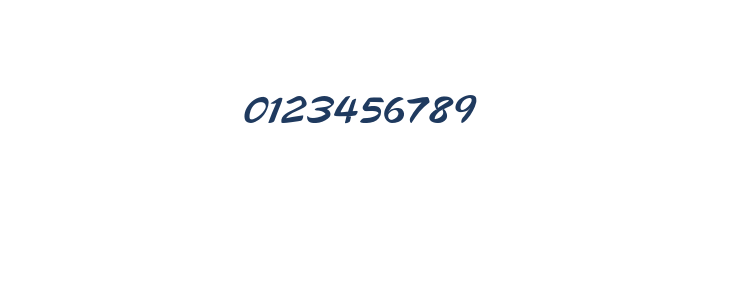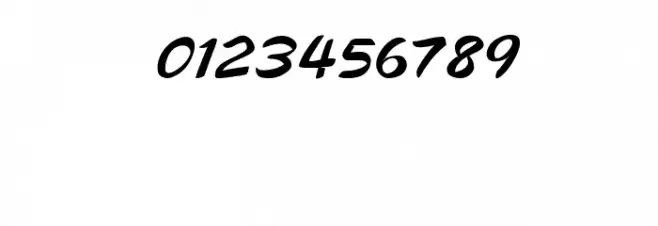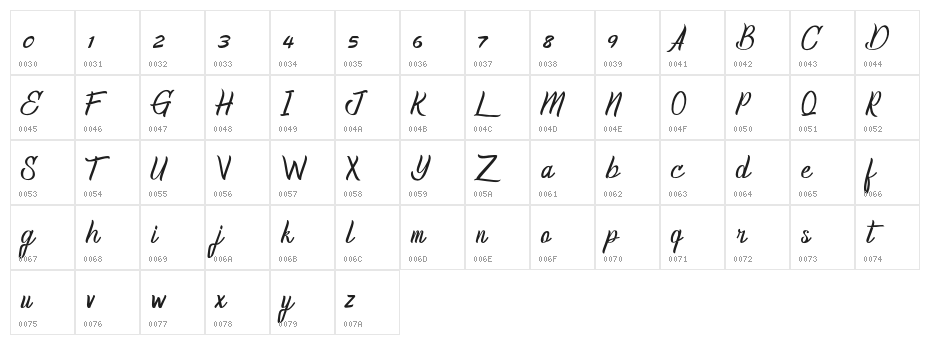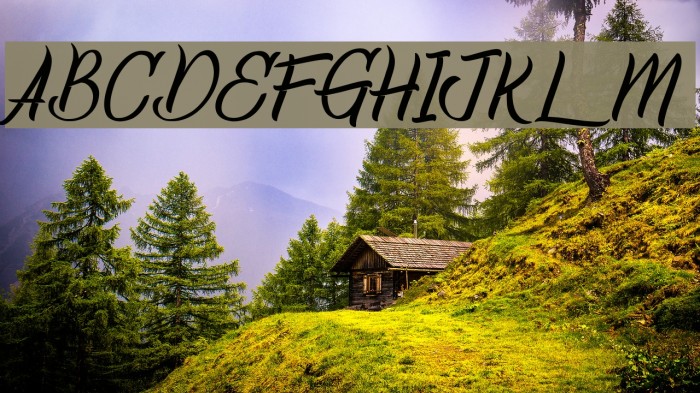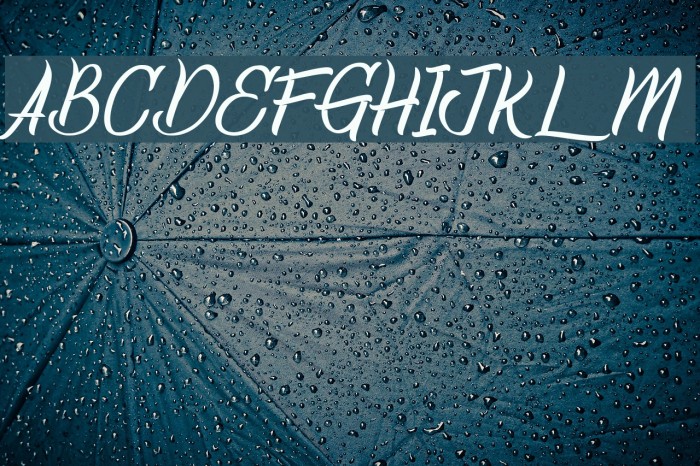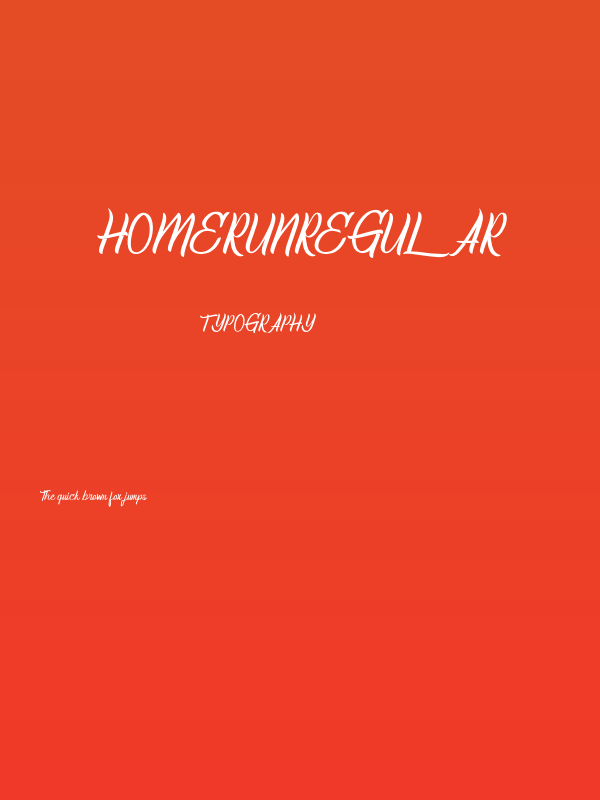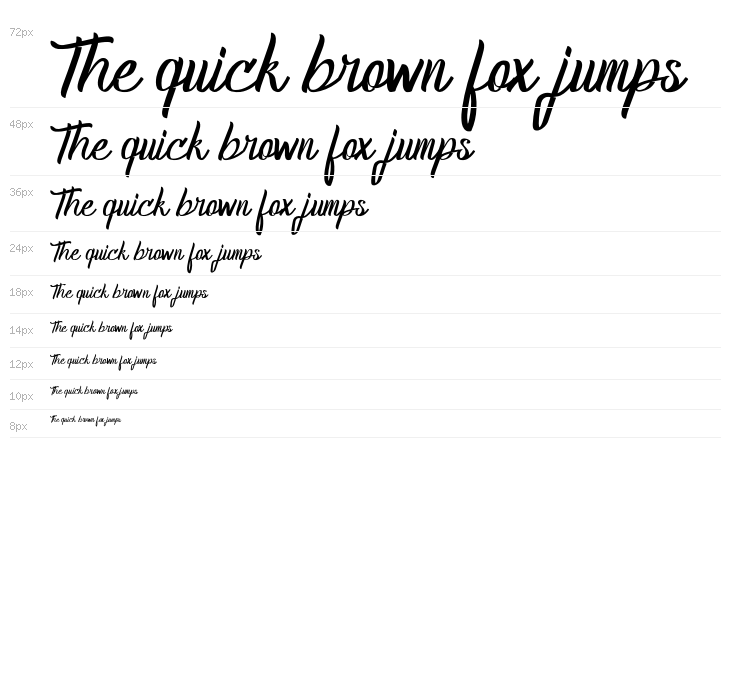
HomerunRegular Font
HomerunRegular Description
This font features a dynamic and flowing script style, characterized by its elegant and cursive letterforms. The uppercase letters are bold and slightly slanted, giving a sense of movement and fluidity. The lowercase letters maintain a consistent style, with smooth curves and a handwritten appearance. The numerals are clear and legible, matching the overall script aesthetic. This font exudes a sense of sophistication and creativity, making it suitable for various artistic and formal applications.
| Overall Style | Elegant, Artistic |
| Proposed Projects | Ideal for wedding invitations, branding, greeting cards, and artistic projects requiring a personal touch. |